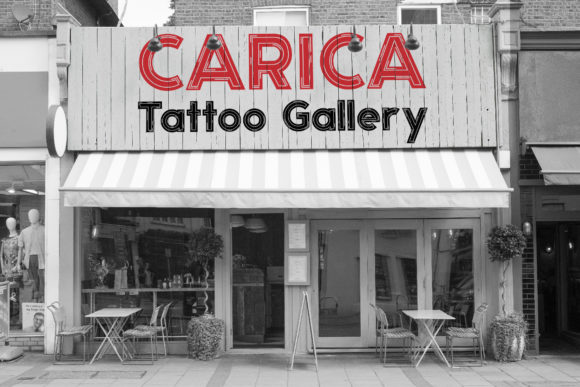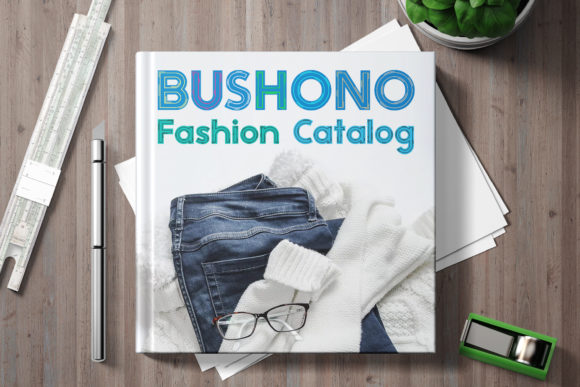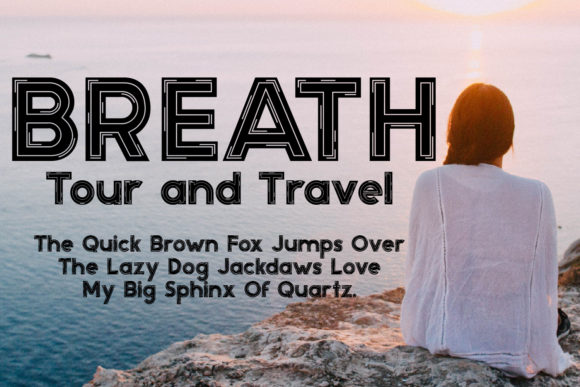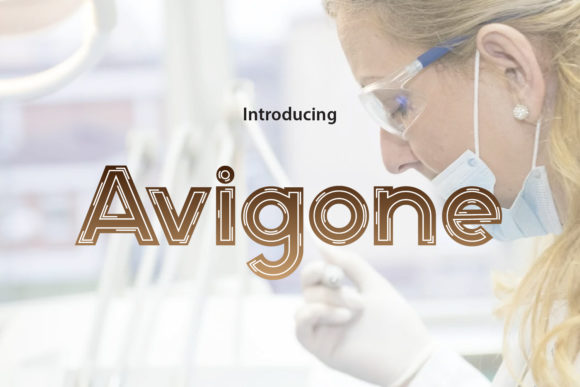
The Designer’s Delight: Avigone Font
I’ll never forget the struggle I faced while working on a branding project for a boutique hotel. The client wanted a font that exuded elegance, yet had a down-to-earth feel. I scoured the internet, tried countless fonts, but nothing seemed to fit the bill. That’s when I stumbled upon Avigone Font. It was love at first sight! ✨ In this article, I’ll share my experience with Avigone, its features, and how to make the most of it in your designs.
• ✨ Elegant display font with a casual charm
• ✅ Highly readable, even on busy backgrounds
• ✅ Incredibly versatile, perfect for various design projects
• ✅ Beautifully crafted, with attention to detail
While Avigone is an excellent font, there are a few things to keep in mind:
• ⚠️ Limited availability of condensed or expanded styles
• 🤔 May not be the best choice for body text, due to its display nature
4. Experiment with OpenType features, such as glyphs and stylistic alternates, to add visual interest
Avigone was crafted with love and attention to detail by a talented type designer. The font’s elegance and charm are inspired by classic calligraphy and modern digital design. The designer aimed to create a font that would be both beautiful and functional, perfect for a wide range of creative projects.
Font Name Avigone Font
Author da_only_aan
Avigone is a versatile font, perfect for various design projects, including branding, advertising, packaging, and editorial design.
While Avigone is a beautiful font, it’s primarily designed for display purposes. For body text, you may want to choose a font with better readability and flow.
Yes, Avigone supports OpenType features, including glyphs, stylistic alternates, and more. You can access these features in compatible design software, such as Adobe Creative Cloud apps.
Avigone is a versatile font that can be used in both print and digital applications. However, its elegance and charm may be more pronounced in digital designs, such as websites, social media graphics, and email marketing materials.